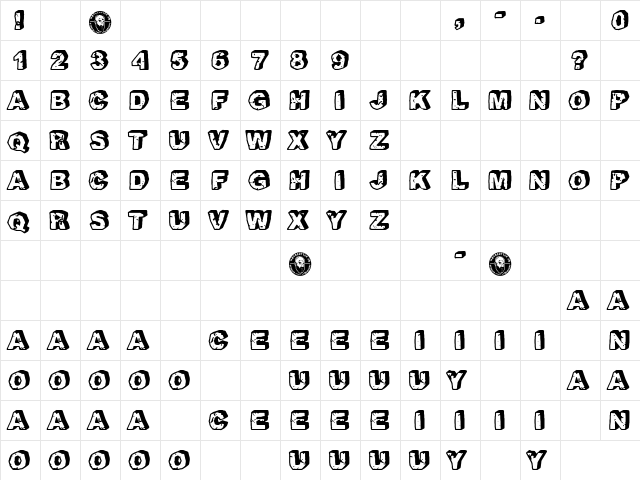
Picapiedra Regular
| Designer | Woodcutter Manero |
Design Context for Picapiedra Typeface
Picapiedra is a composed and adaptable typeface that performs quietly and consistently across a wide range of design contexts.